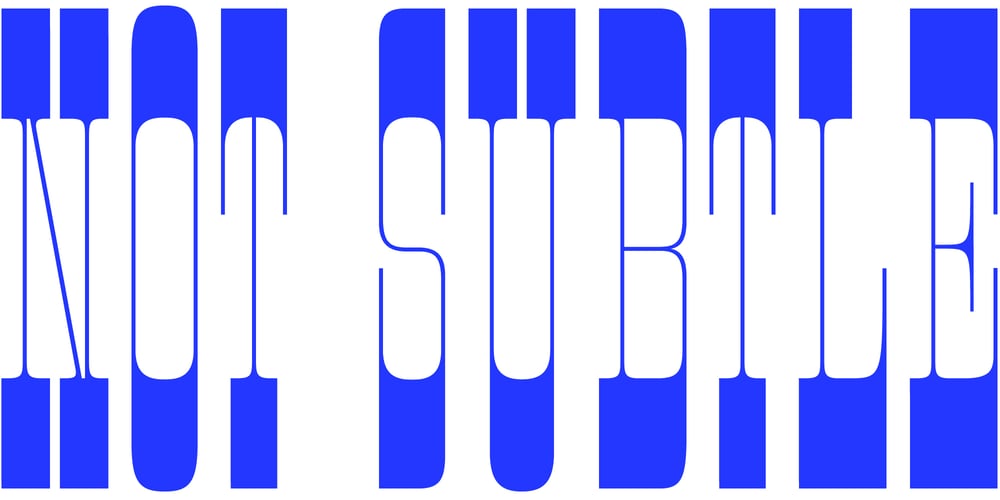
Extra C
Extra C font
Extra C Font Family was designed by Sandra García and published by Tipastype. Extra C contains 5 styles and family package options. It is an Extra Condensed, Extra Light, Extra experimental and Extra display font.Extra C is a fun font that doesn’t take itself too seriously. Ideal for those who need a font with great character and personality but at the same time a delicate touch in their graphic pieces.EXTRA C has 4 static weights in addition to a variable version.